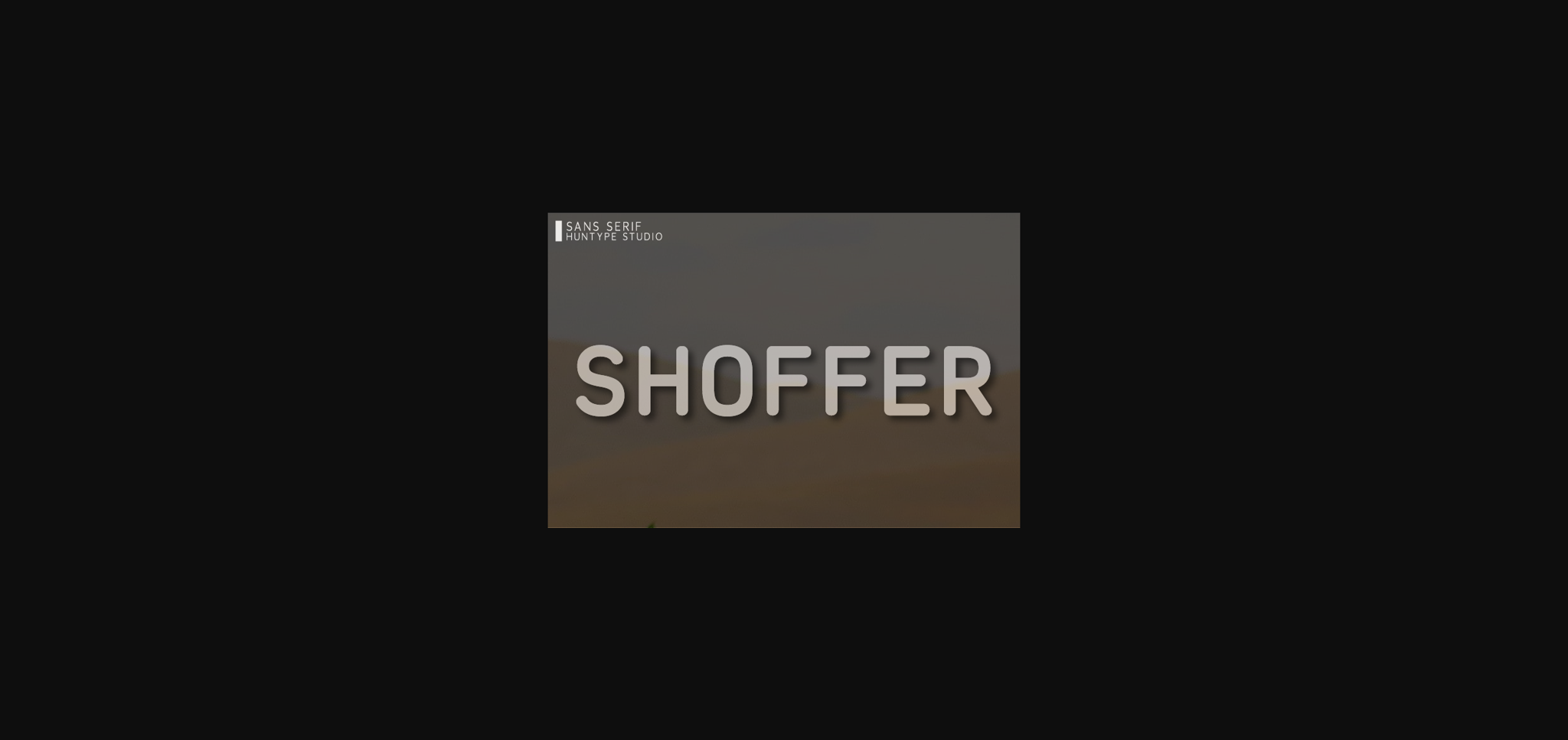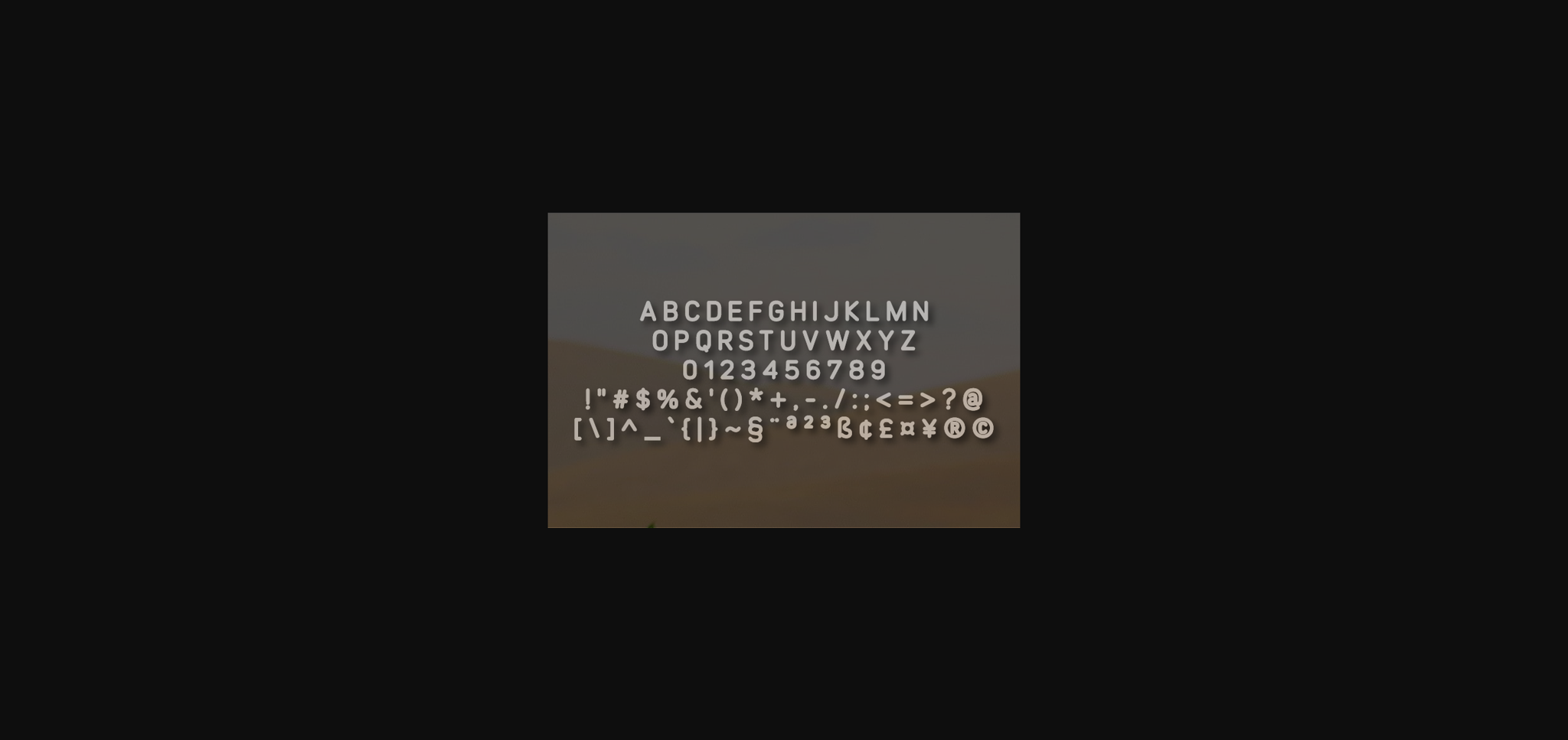
About Shoffer Font
Shoffer is a distinct and elegant sans serif font that blends traditional influences into a contemporary aesthetic. It will look particularly adept when used in logos, branding, packaging design, and much more.